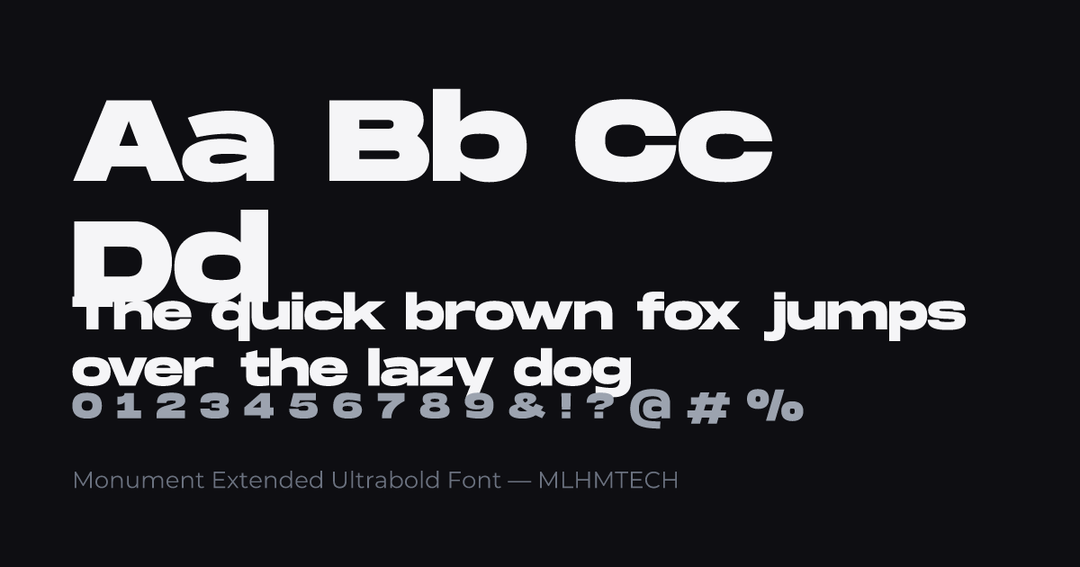
Monument Extended Ultrabold Font
Monument Extended Ultrabold is a striking, wide sans-serif font that commands attention. Ideal for headlines, posters, and branding projects.
Monument Extended Ultrabold is a high-impact display font with an extended, geometric design. Its thick strokes and wide letterforms make it perfect for grabbing attention in posters, social media graphics, and branding materials.
This font is part of the Monument family, known for its modern, confident aesthetic. The Ultrabold weight adds extra punch, making it ideal for headlines, titles, and key visual elements. The included OTF file ensures compatibility with most design software.
Whether you're creating a bold logo, an eye-catching flyer, or a dynamic video title, Monument Extended Ultrabold will elevate your design with its strong, contemporary look.